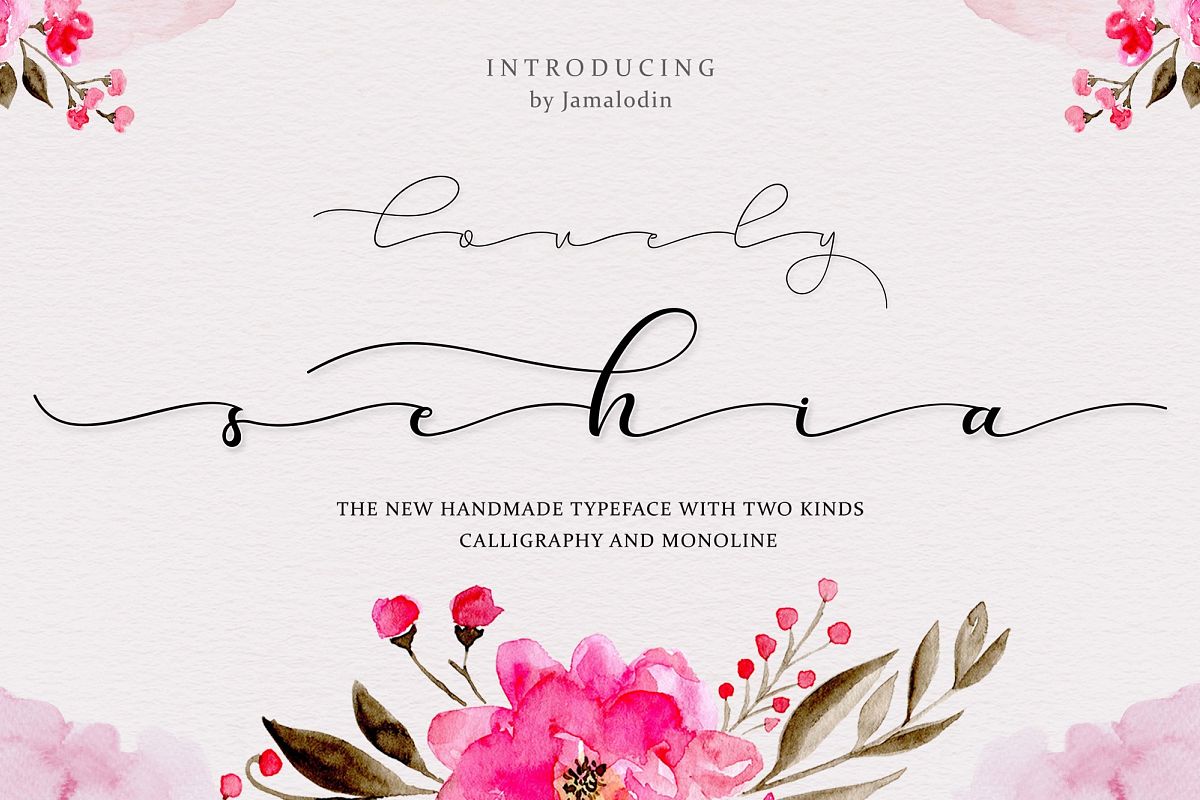
Sehia Script Calligraphy & Monoline
Sehia Calligraphy
Sehia Monoline
Sehia Script Calligraphy & Monoline
Sehia Script a new fresh & modern script with a handmade calligraphy and monoline style, decorative, characters and a dancing baseline! So beautiful on invitation like greeting cards, branding materials, business cards, quotes, posters, and more !
Sehia Script come with 2 kinds calligraphy & monoline. The alternative characters were divided into several Open Type features such as Swash, Stylistic Sets, Stylistic Alternates, Contextual Alternates. The Open Type features can be accessed by using Open Type savvy programs such as Adobe Illustrator, Adobe InDesign, Adobe Photoshop Corel Draw X version, And Microsoft Word. And this Font has given PUA unicode (specially coded fonts). so that all the alternate characters can easily be accessed in full by a craftsman or designer.
Sehia Script Calligraphy & Monoline: